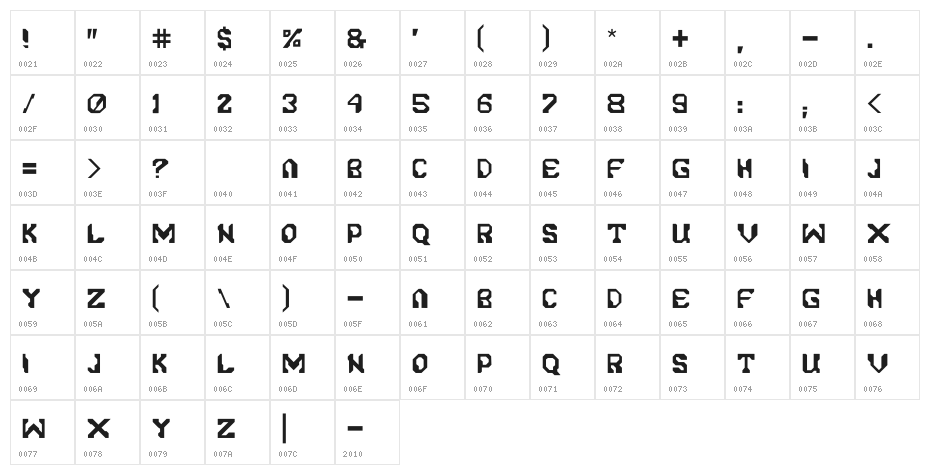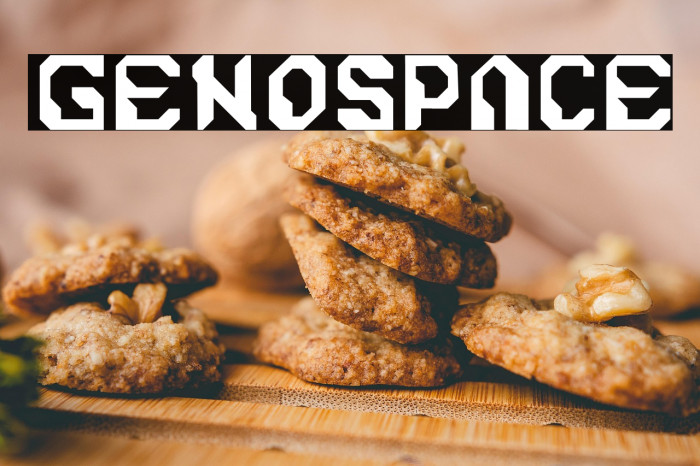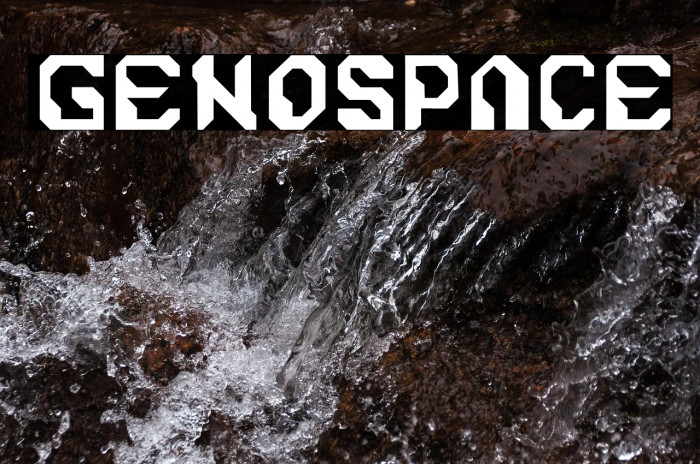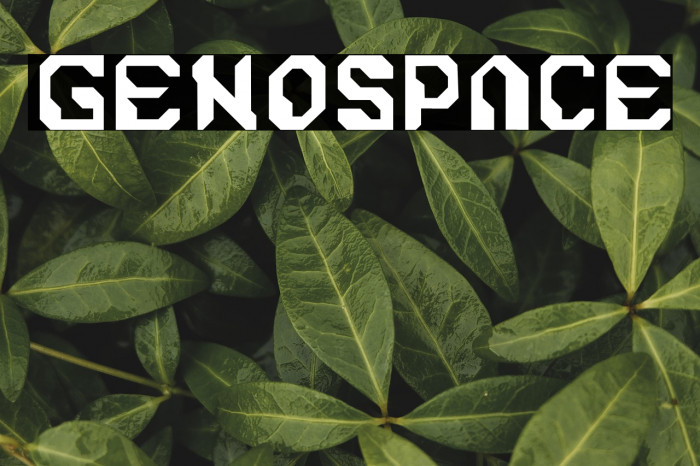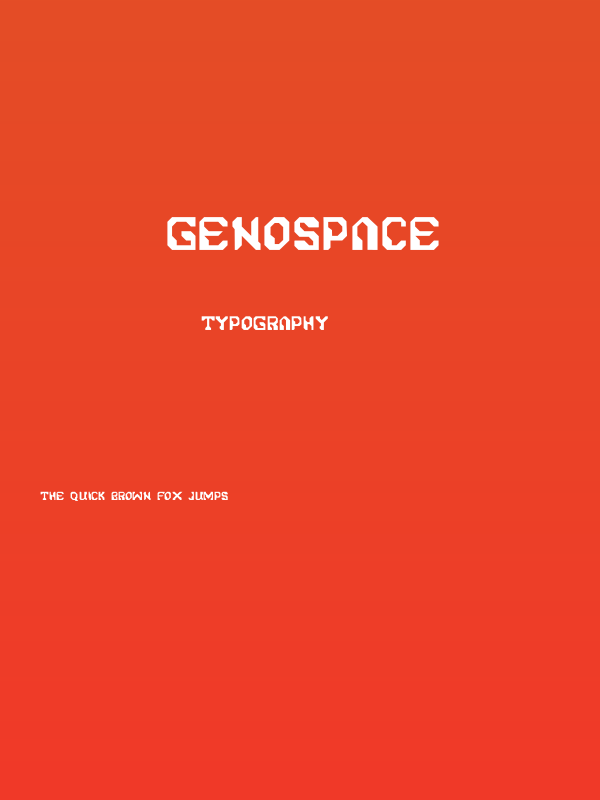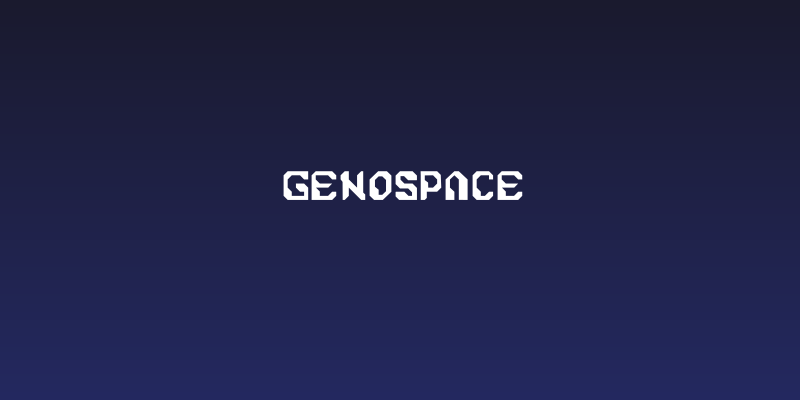
Genospace Font
Genospace Description
This font features a bold, geometric design with angular cuts and a futuristic aesthetic. The characters are constructed with sharp edges and a blocky appearance, giving them a strong and impactful presence. The uppercase and lowercase letters maintain a consistent style, with the lowercase being slightly smaller but equally bold. Numbers and special characters follow the same design principles, ensuring uniformity across all glyphs. The font's distinct style makes it suitable for projects that require a modern and edgy look.
Overall StyleFuturistic
Proposed ProjectsIdeal for sci-fi themed designs, video game titles, tech branding, and futuristic posters.